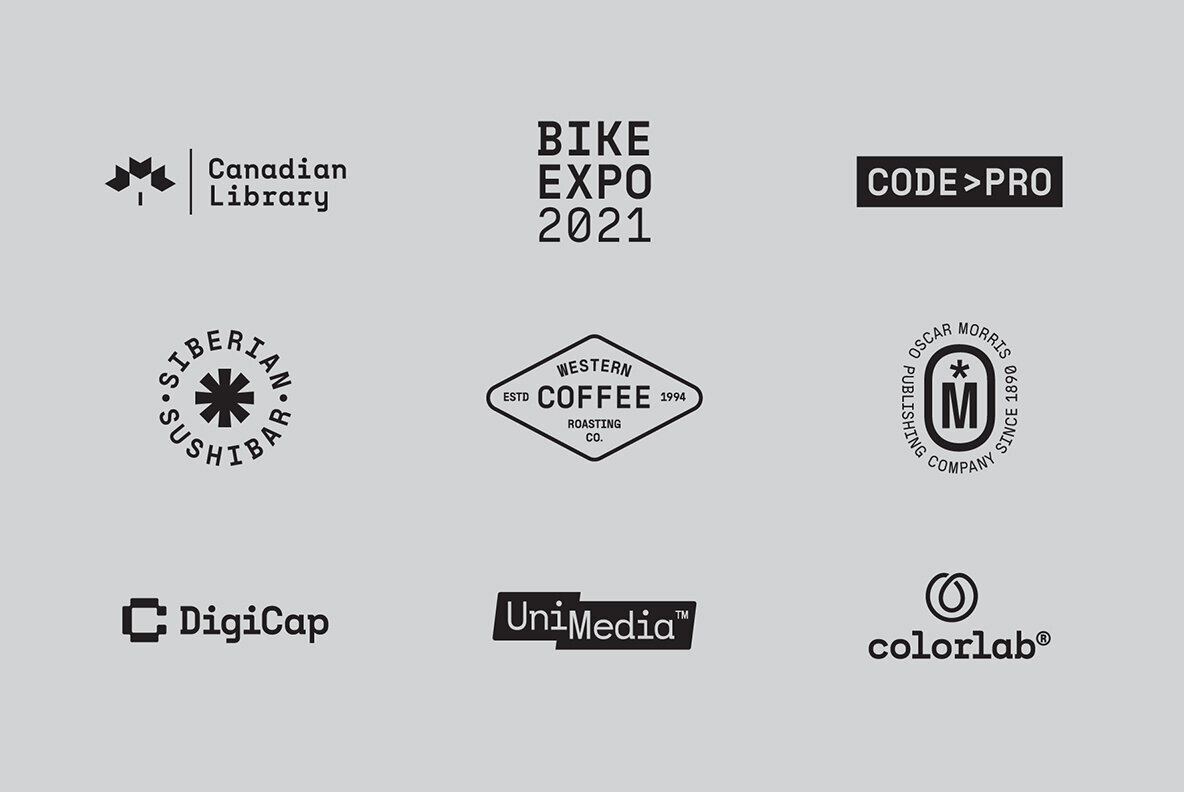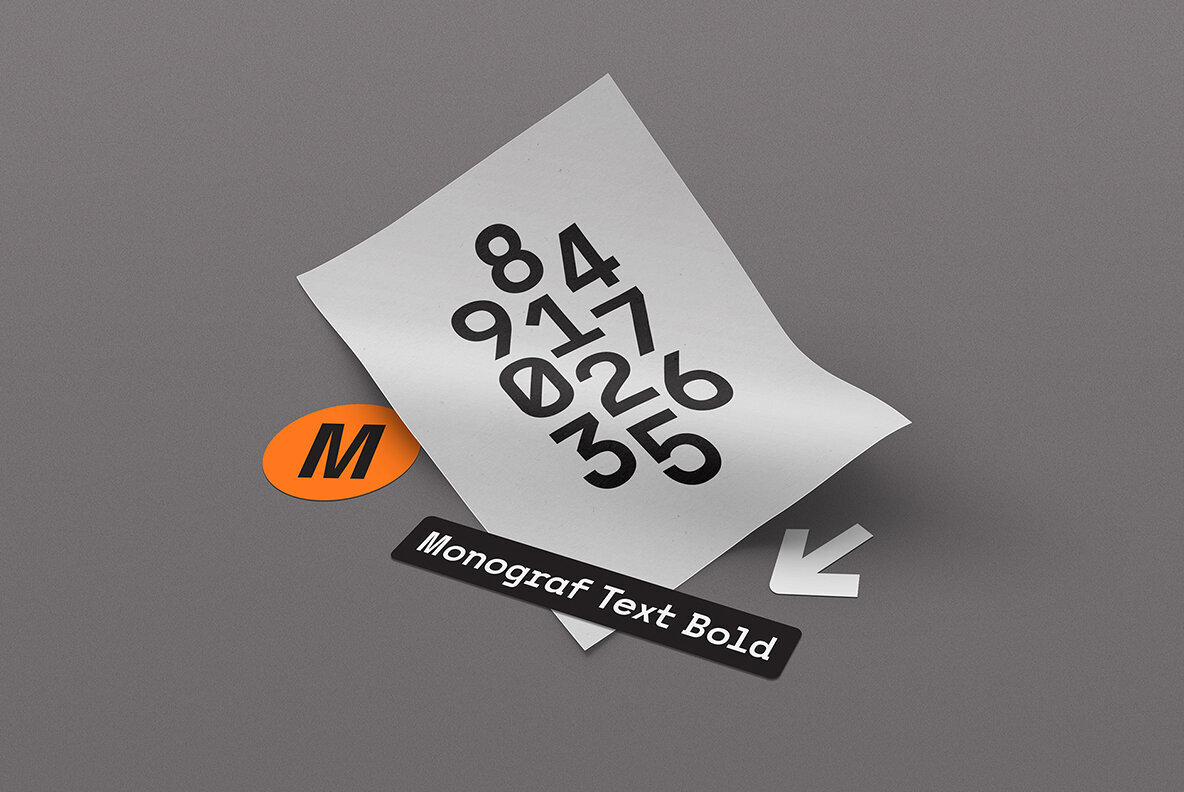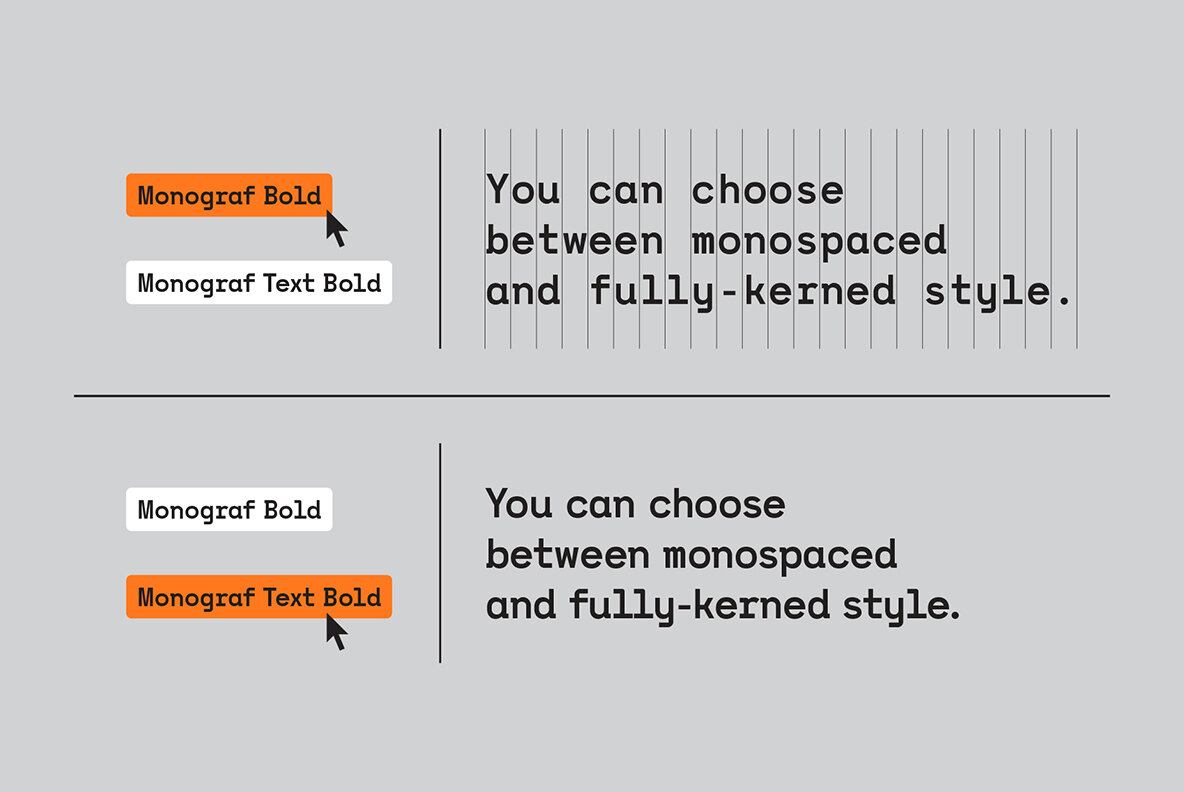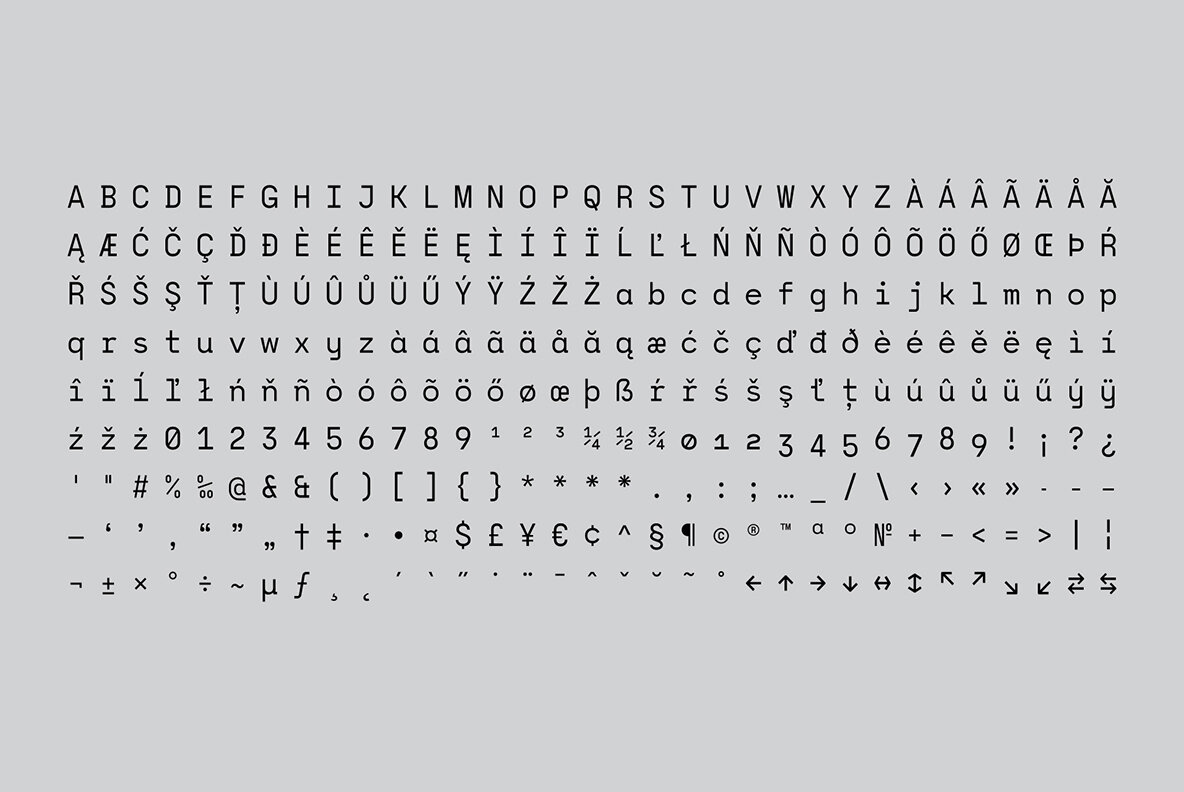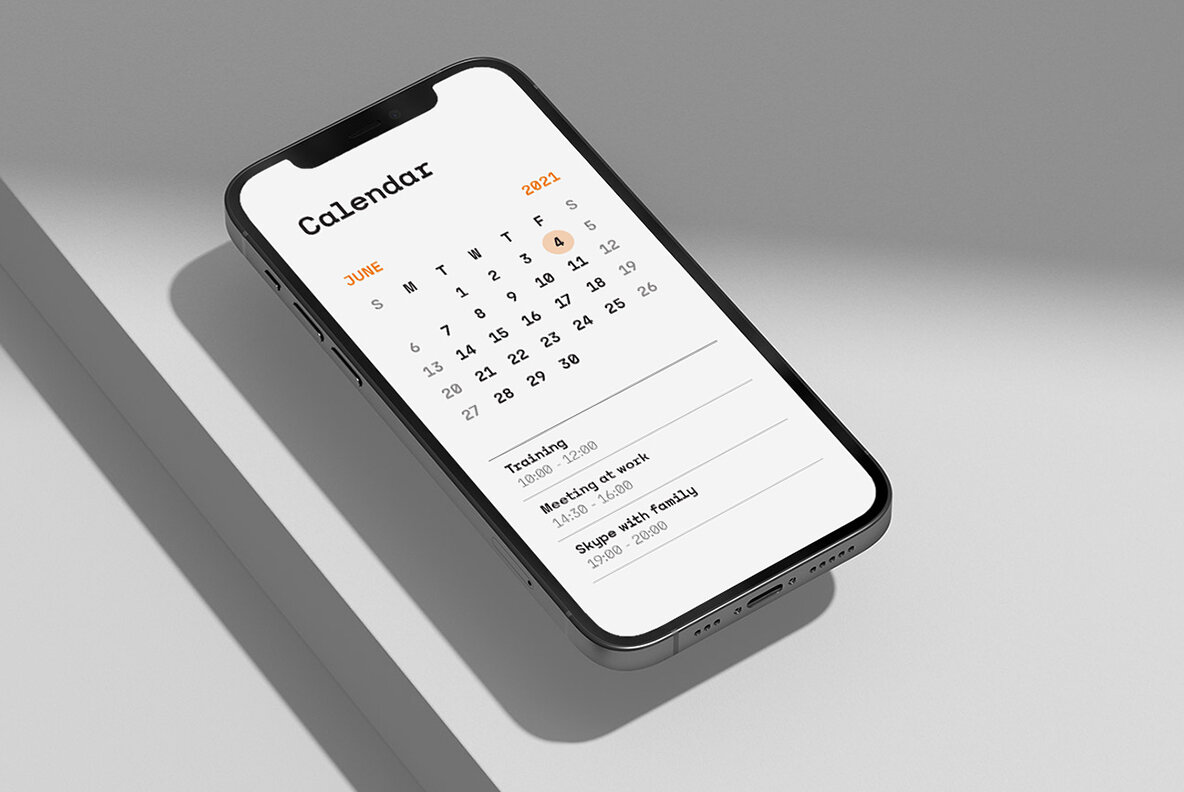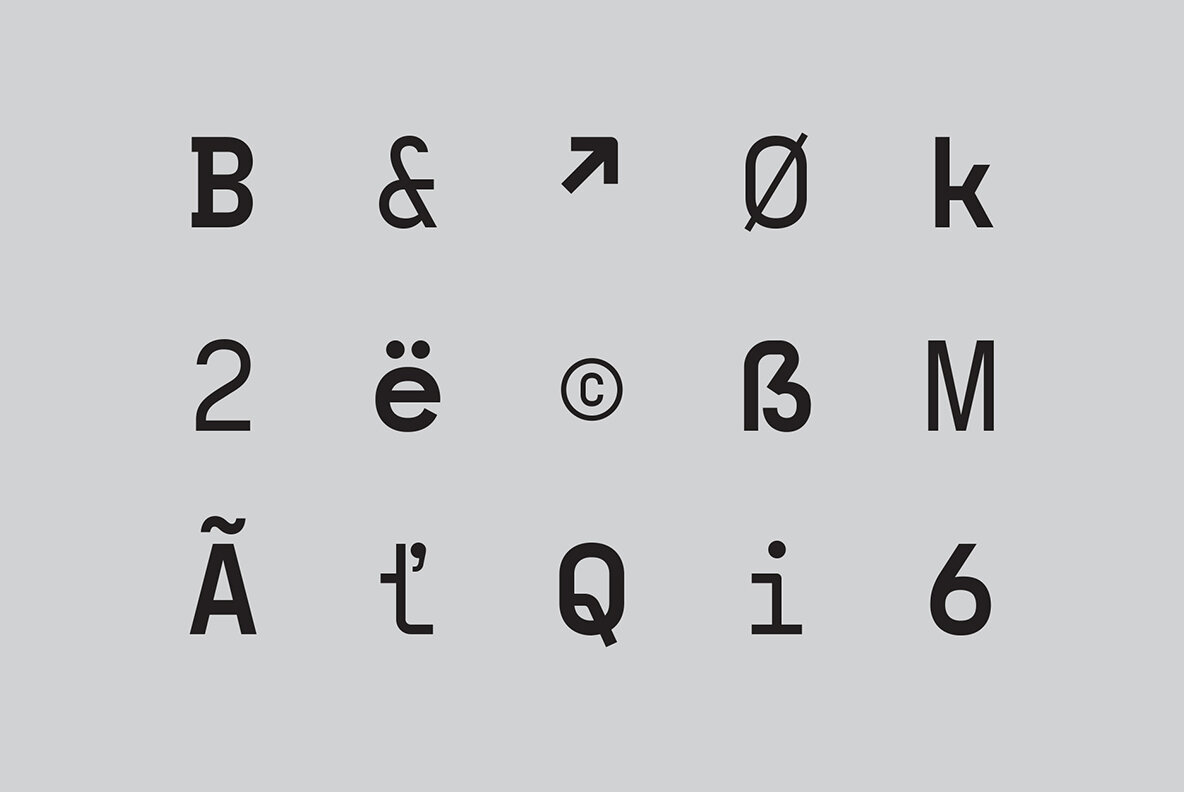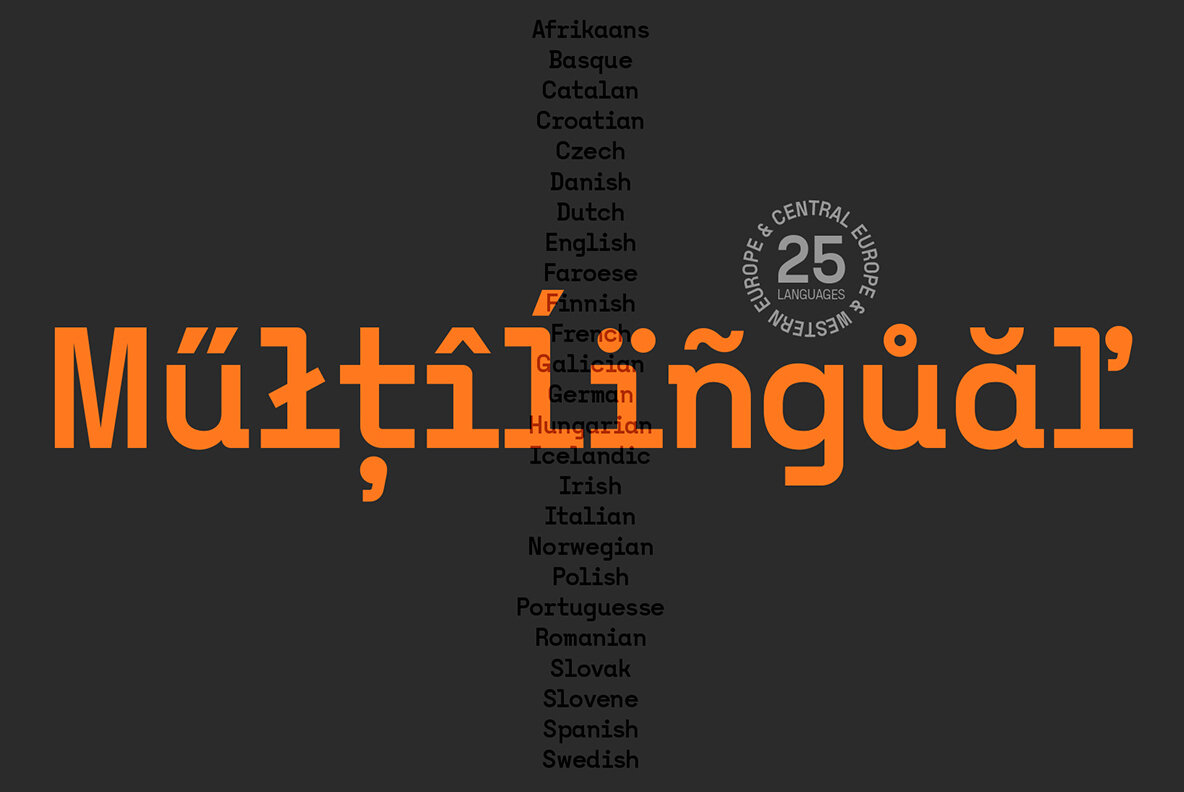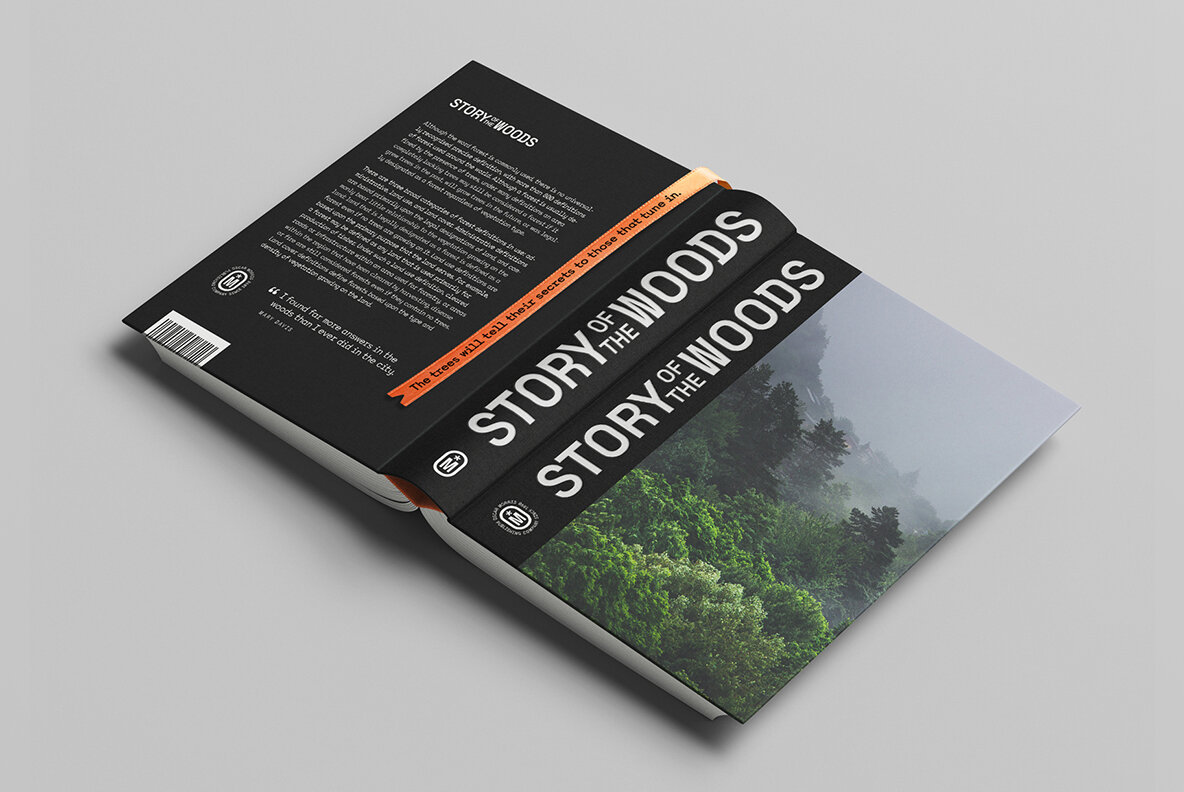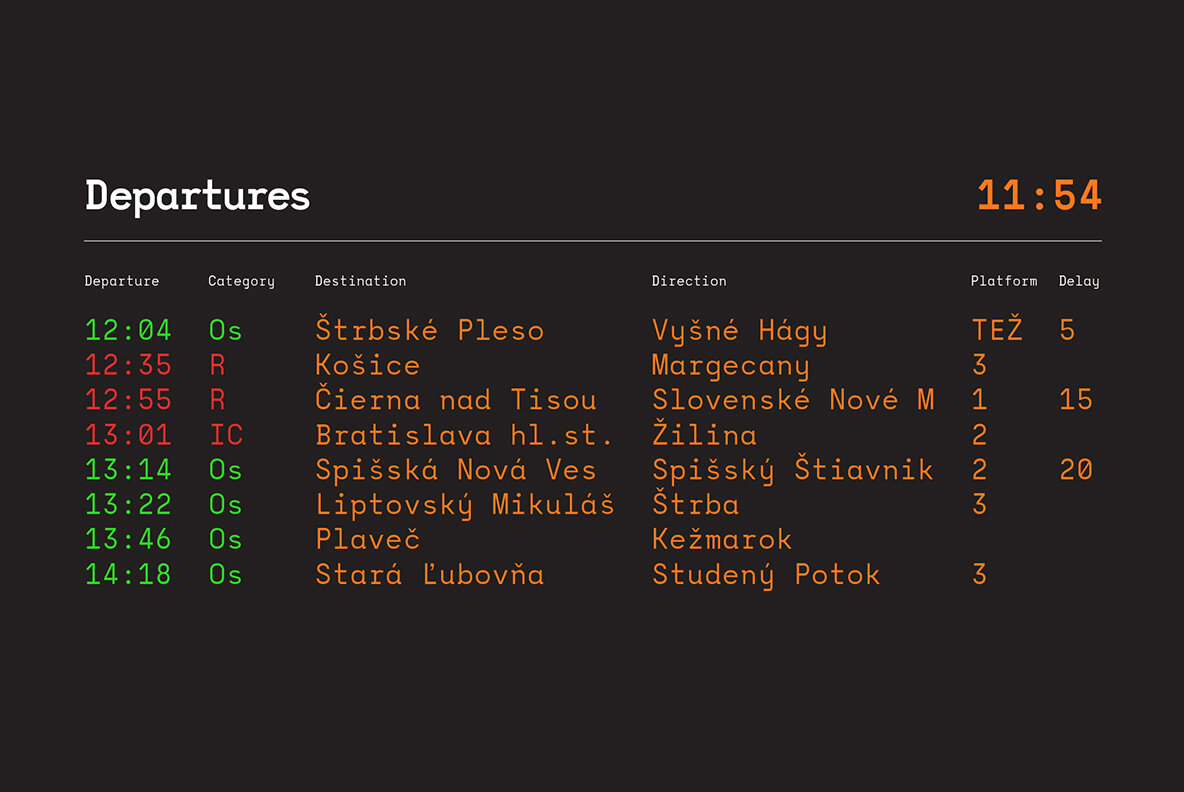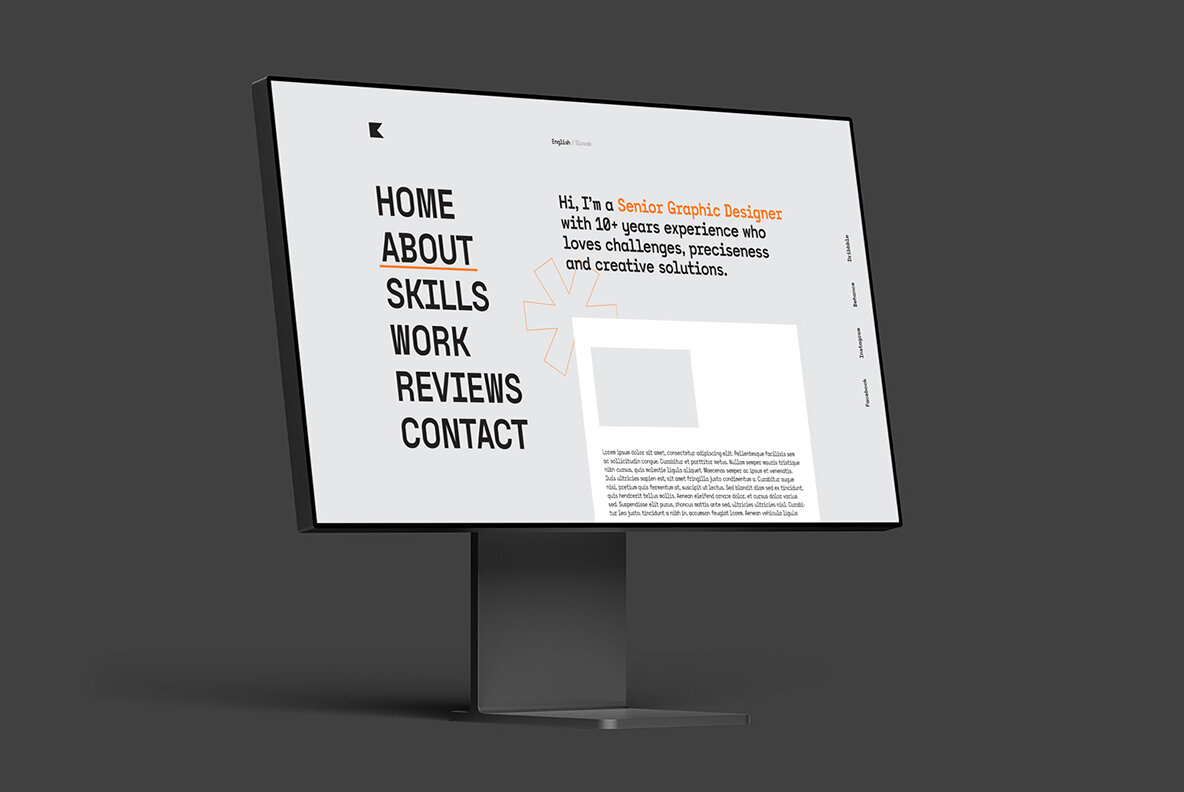
Monograf Font
Monograf was originally designed as fixed-width monospaced font which has 2 weights (Regular and Bold). Monograf Text is a derived style of Monograf with proportional spacing and well-balanced kerning to make the text easier to read and look optically balanced.
So in the total bundle you get 4 pieces of this font: Monograf Regular, Monograf Bold, Monograf Text Regular and Monograf Text Bold.
This versatile font with clean geometry and slightly rounded corner elements works great in digital space, as well in print. It also retains its legibility at smaller sizes. Typographic features include old-style figures, directional arrows and four types of asterisks. The entire font is suitable for purposes such as tabular layout, coding, website, but also for magazines, logos, signs, products, and others.
Basic latin alphabet A-Z
116 Accented characters
Numbers, Punctuation, Currency, Symbols, Math symbols & Diacritics
Old style figures, Directional arrows and 4 asterisks